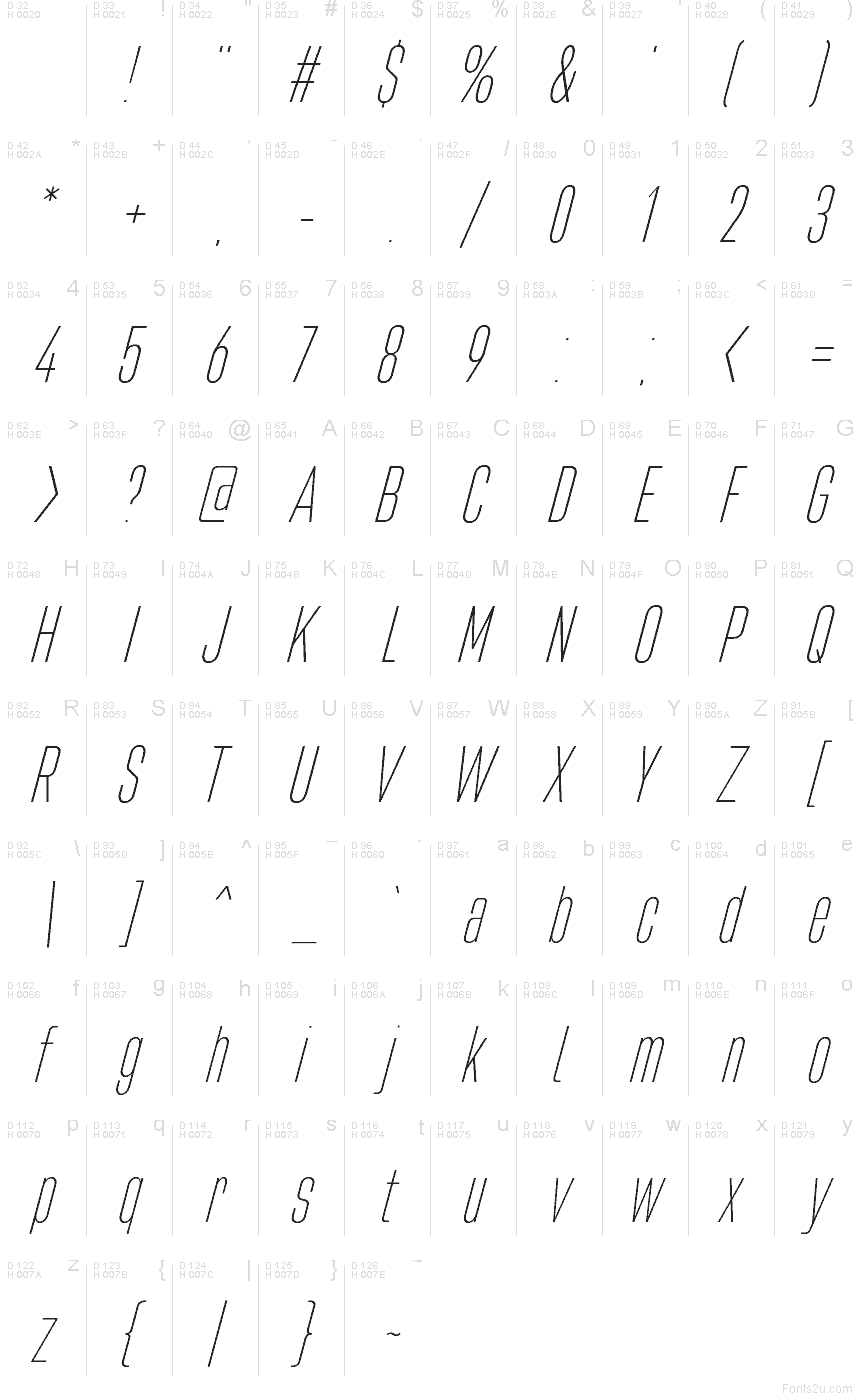
Bilgen Demo Extra Light Right
Bilgen Extra Light Right font by Bykineks is a free condensed sans serif typeface that feels like handwriting stretched into sleek neon tubing. Its extra-light weight, tall proportions, and right-leaning slant give every word a sense of motion—like it’s mid-stride across the page. Letters are narrow, airy, and finely drawn, so you get a lot of character in a very slim horizontal footprint, great when space is tight but style still matters.
Using Bilgen Extra Light Right, headlines look fashion-forward and slightly cinematic, making this free font a natural fit for magazine covers, runway branding, perfume or cosmetic packaging, posters, and striking social graphics. It shines on large sizes where those hairline strokes can really breathe. For longer supporting text, pair it with a neutral grotesk or geometric sans in regular weight, and let Bilgen handle the bold, whispered statement moments.